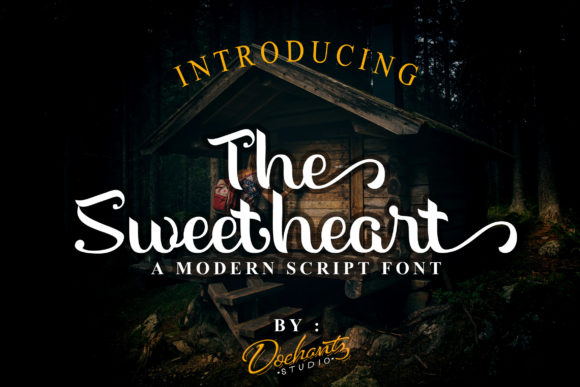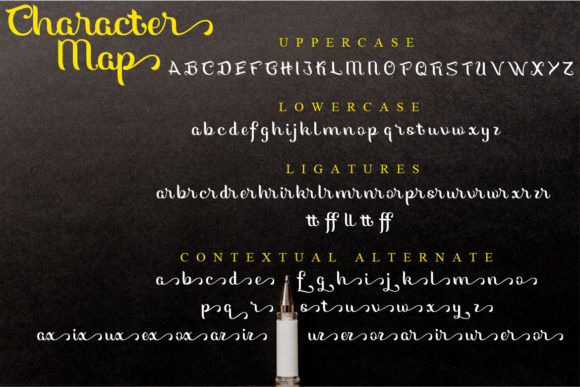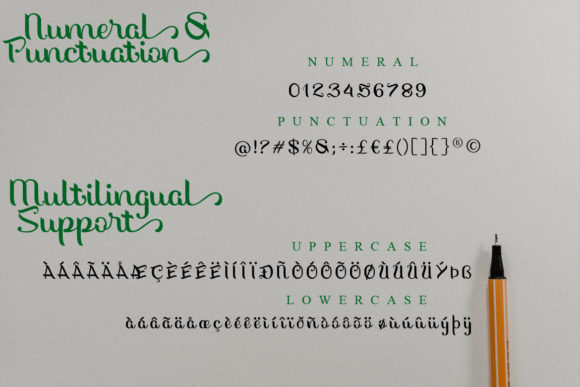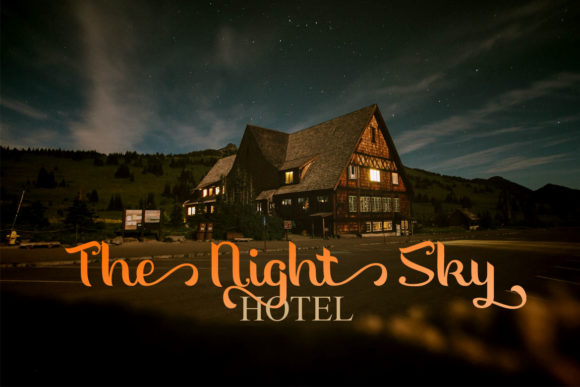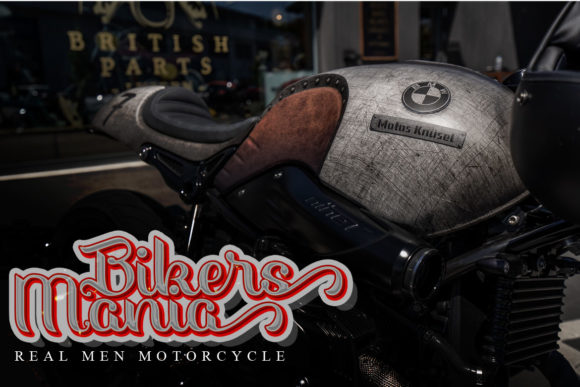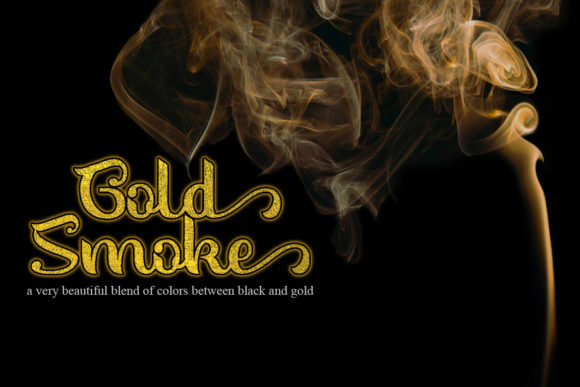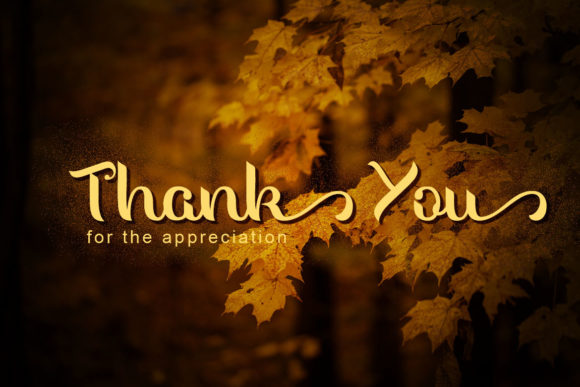
The Sweetheart Font
About The Sweetheart Font
The Sweetheart is a modern script font with an elegant script on lowercase and semi blackletter on uppercase. It will add a unique charm to any design project!